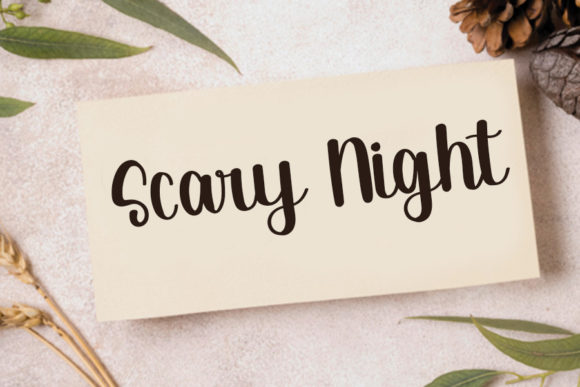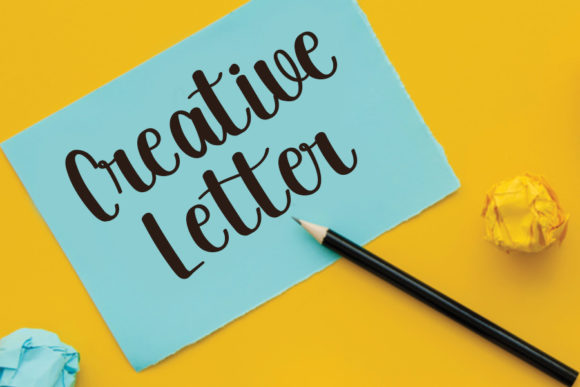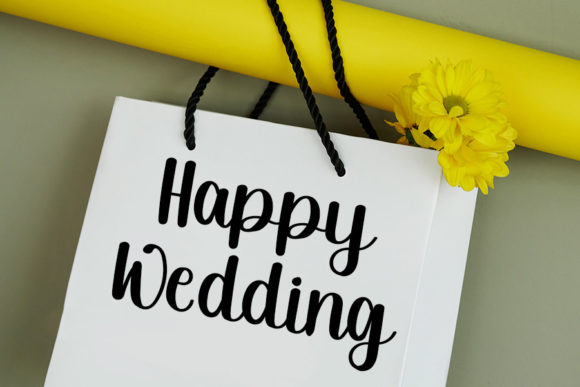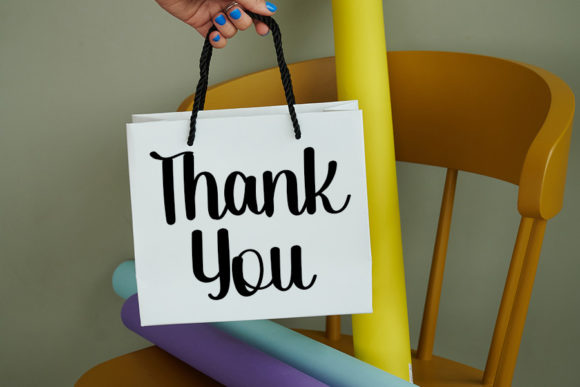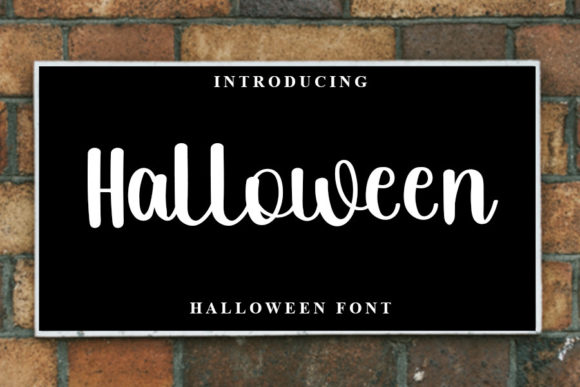
Unleash the Spoirit of Halloween with the Perfect Font: A Comprehensive Guide to Halloween Font
Halloween is just around the corner, and with it comes the excitement of creating spooky and spectacular designs for various business needs. Whether you’re a designer, crafter, or business owner, having the right font can make all the difference in creating eye-catching and eerie designs. Introducing the Halloween Font, a beautiful and charming handwritten font that’s perfect for your Halloween-themed designs. In this article, we’ll dive into the features, benefits, and uses of the Halloween Font, and explore how it can elevate your designs to the next level.
What is Halloween Font?
Halloween Font is a stunning handwritten font that’s specifically designed to capture the essence of Halloween. With its unique and quirky style, this font is perfect for creating spooky and fun designs that will leave a lasting impression on your audience. The font is highly versatile and can be used for various business needs, including shirt designs, logos, banners, and more.
Key Features of Halloween Font
- Beautiful and Charming Design: The Halloween Font boasts a beautiful and charming handwritten design that’s perfect for creating eye-catching and eerie designs.
- Highly Versatile: This font is suitable for various business needs, including shirt designs, logos, banners, and more.
- Scalable: The font is highly scalable, ensuring that it looks great in various sizes and resolutions.
Benefits of Using Halloween Font
Using the Halloween Font can bring numerous benefits to your designs and business. Here are some of the advantages of using this font:
- Unique and Eye-Catching Designs: The Halloween Font allows you to create unique and eye-catching designs that will stand out from the crowd.
- Time-Saving: With its ease of use and versatility, the Halloween Font can save you time and effort in creating designs.
- Professional-Looking Designs: The font’s high-quality design ensures that your designs look professional and polished.
- Increased Engagement: The Halloween Font’s spooky and fun design can help increase engagement and attract attention from your audience.
Uses of Halloween Font
The Halloween Font is highly versatile and can be used for various business needs, including:
- Shirt Designs: Create spooky and fun shirt designs for Halloween-themed merchandise.
- Logos: Design eye-catching and memorable logos for your business or Halloween-themed events.
- Banners: Create stunning banners for Halloween-themed parties, events, or promotions.
- Social Media Graphics: Design engaging social media graphics, such as Facebook posts, Instagram stories, and Twitter headers.
Tips and Tricks for Using Halloween Font
Here are some tips and tricks for using the Halloween Font:
- Experiment with Different Sizes and Colors: Try out different sizes and colors to create unique and eye-catching designs.
- Combine with Other Fonts: Combine the Halloween Font with other fonts to create interesting and dynamic designs.
- Use in Conjunction with Halloween-Themed Graphics: Use the Halloween Font in conjunction with Halloween-themed graphics, such as pumpkins, ghosts, and bats.
In conclusion, the Halloween Font is a beautiful and charming handwritten font that’s perfect for creating spooky and spectacular designs for various business needs. With its ease of use, versatility, and high-quality design, this font is a must-have for designers, crafters, and business owners looking to create eye-catching and eerie designs. Whether you’re creating shirt designs, logos, banners, or social media graphics, the Halloween Font is sure to elevate your designs to the next level.